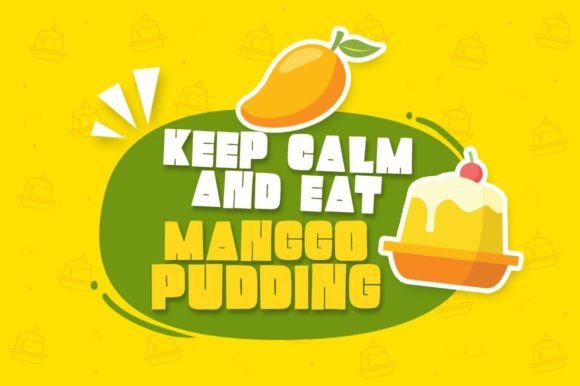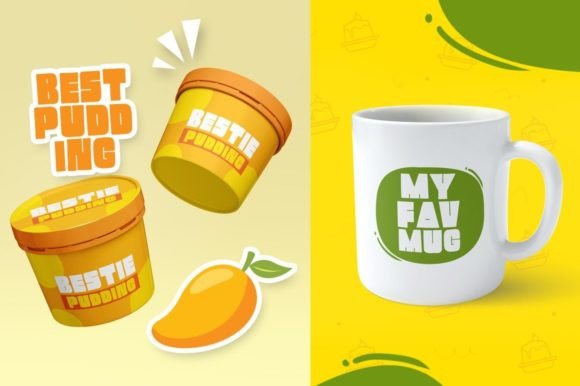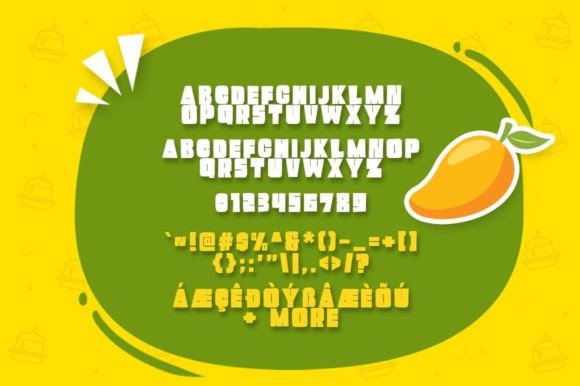
Introduction to Mango Pudding Font
Remember that moment when you’re brainstorming ideas for your next creative project, and you stumble upon the perfect font to bring your vision to life? It’s like finding the missing piece of a puzzle, and everything starts to fall into place. For designers, finding the right font can be a game-changer, and that’s exactly what the Mango Pudding Font does.
This fun and cool display font is a design resource that’s hard to resist. With its high-quality design, it’s perfect for cartoon-related designs, children’s games, or any creation that requires a playful touch. Whether you’re working on a project that needs a splash of color or a dash of whimsy, the Mango Pudding Font is the perfect choice.
Key Features of Mango Pudding Font
- Unique, hand-drawn design with transparent background
- Includes 250+ glyphs and supports multiple languages
Honest Review: Mango Pudding Font
As a designer, I’m always on the lookout for high-quality, unique fonts to elevate my creative projects. The Mango Pudding Font caught my eye with its playful, whimsical feel.
- Unique, hand-drawn style
- High quality, clear rendering
- Transparent background for flexible design use
However, I do have a few minor quibbles ⚠️. The font can be a bit overwhelming when used in large blocks of text, and the character set is limited compared to more comprehensive font libraries.
Overall, I’d say the Mango Pudding Font is a solid addition to any designer’s collection. Its creative potential and transparent background make it an excellent resource for designers looking to add some personality to their projects.
When using the Mango Pudding Font, keep in mind that it has a transparent background, making it perfect for use on images or other design elements. Experiment with different font sizes and styles to create a unique and visually appealing design.
The Mango Pudding Font is perfect for use in a variety of creative projects, including graphics, presentations, and documents. Its high-quality design and transparent background make it an excellent choice for designers and non-designers alike.